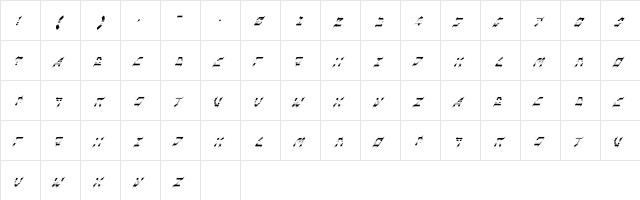
Speed Bolt Bolt-Regular
Design Context for Speed Bolt Typeface
Speed Bolt is a composed and adaptable typeface that performs quietly and consistently across a wide range of design contexts.